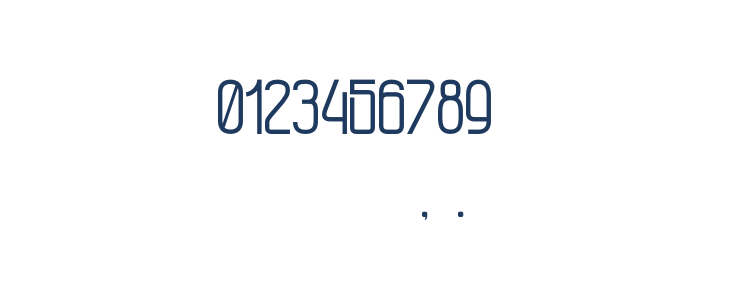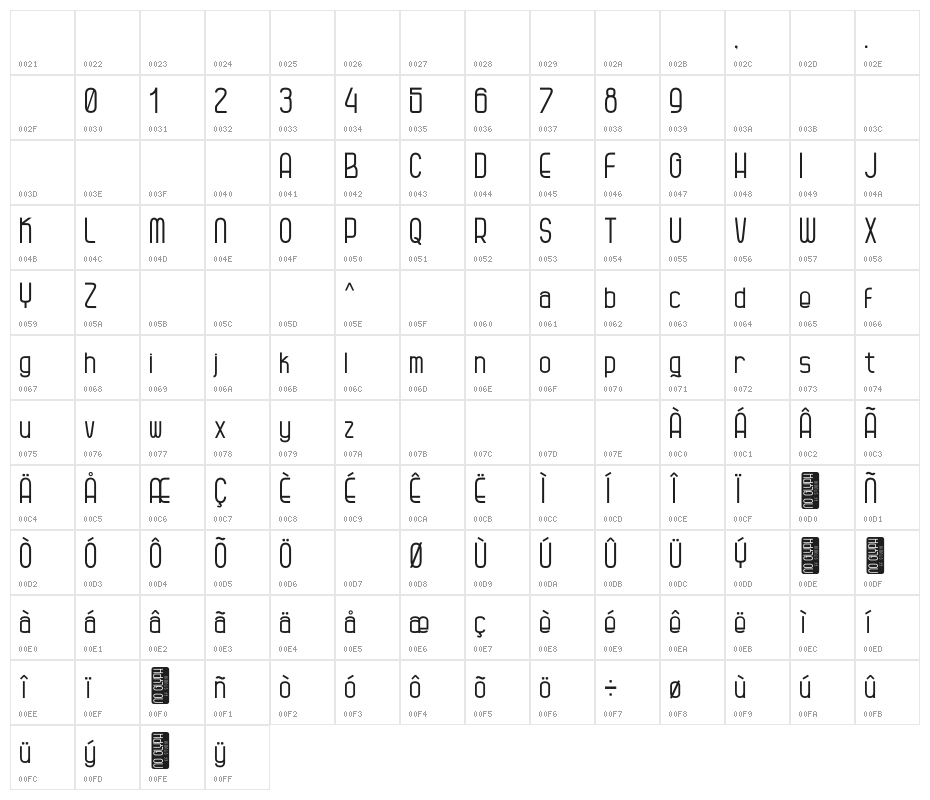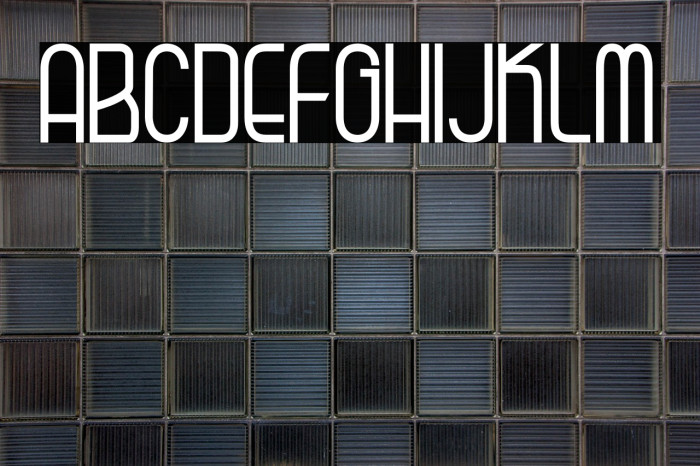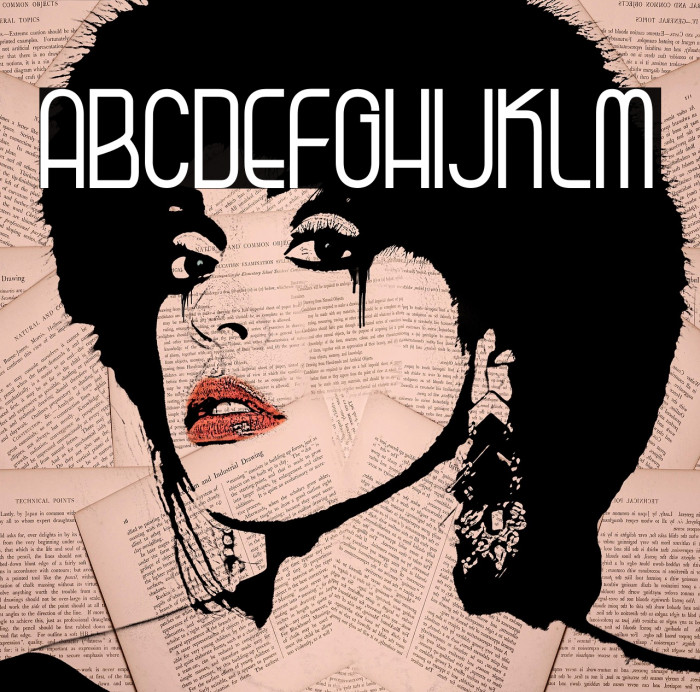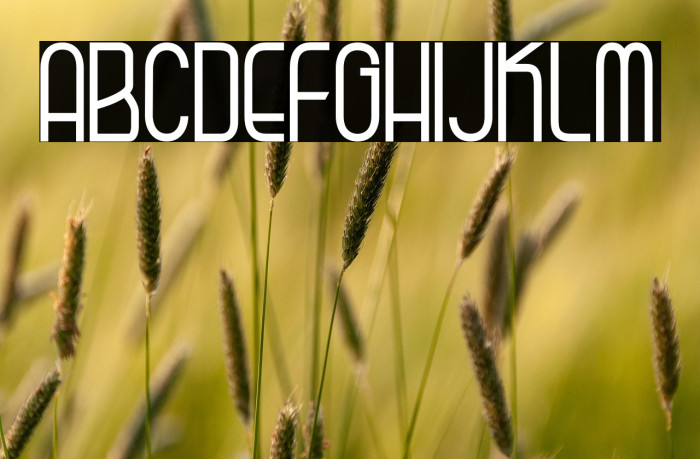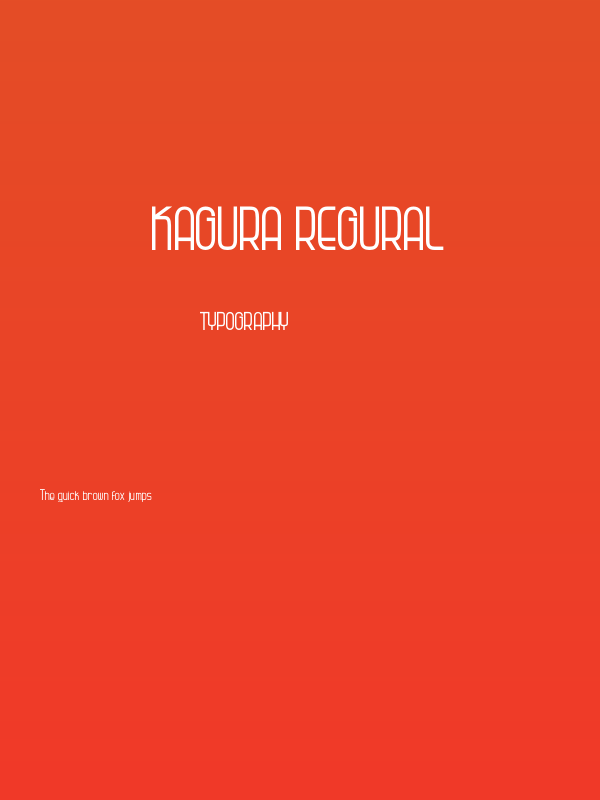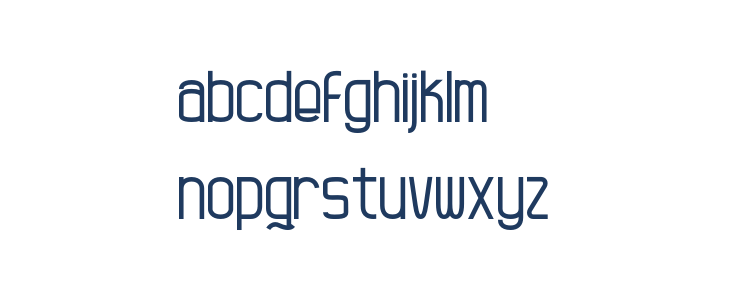
Kagura Regural Font
Kagura Regural Description
This font features a modern and sleek design with a geometric structure. The characters are elongated with rounded edges, giving it a contemporary and friendly appearance. The uppercase letters are uniform in height, while the lowercase letters maintain a consistent baseline with slight variations in ascenders and descenders. The numerals are clear and easy to read, matching the overall style of the alphabet. The font's clean lines and open forms make it versatile for various design applications.